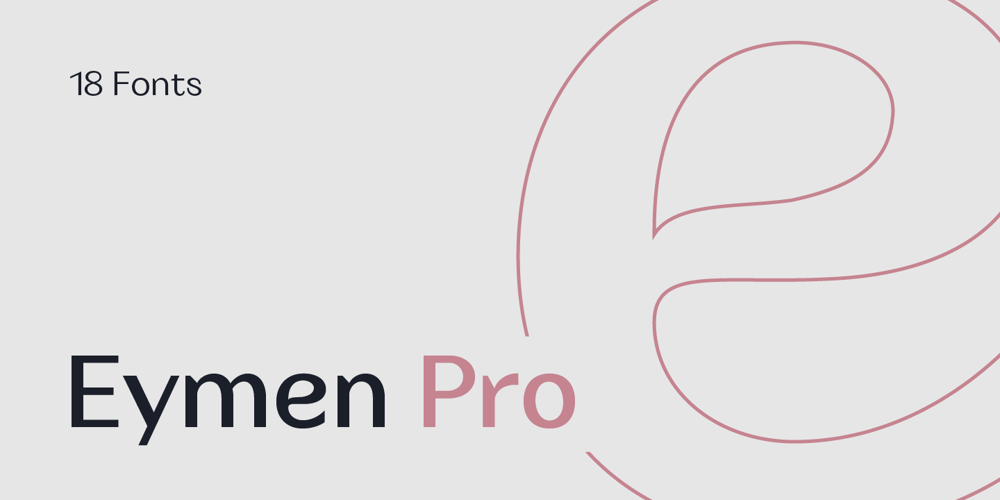
Eymen Pro Font Family was designed by Serdar Öztürk and published by Serdar Ozturk. Eymen Pro contains 18 styles and family package options. Eymen is a font that has both hard and fun dynamics. In fact, it was primarily dedicated to cool magazine paragraphs and content in the textile industry. But thanks to its large family structure, it can be used easily in many sectors and products. In addition, Eymen can be your companion in your heavy, aesthetic logo designs.In addition, the Eymen Pro family offers you alternative glyphs, ligarutes and more. Thanks to its wide character structure, it supports you for all kinds of languages.